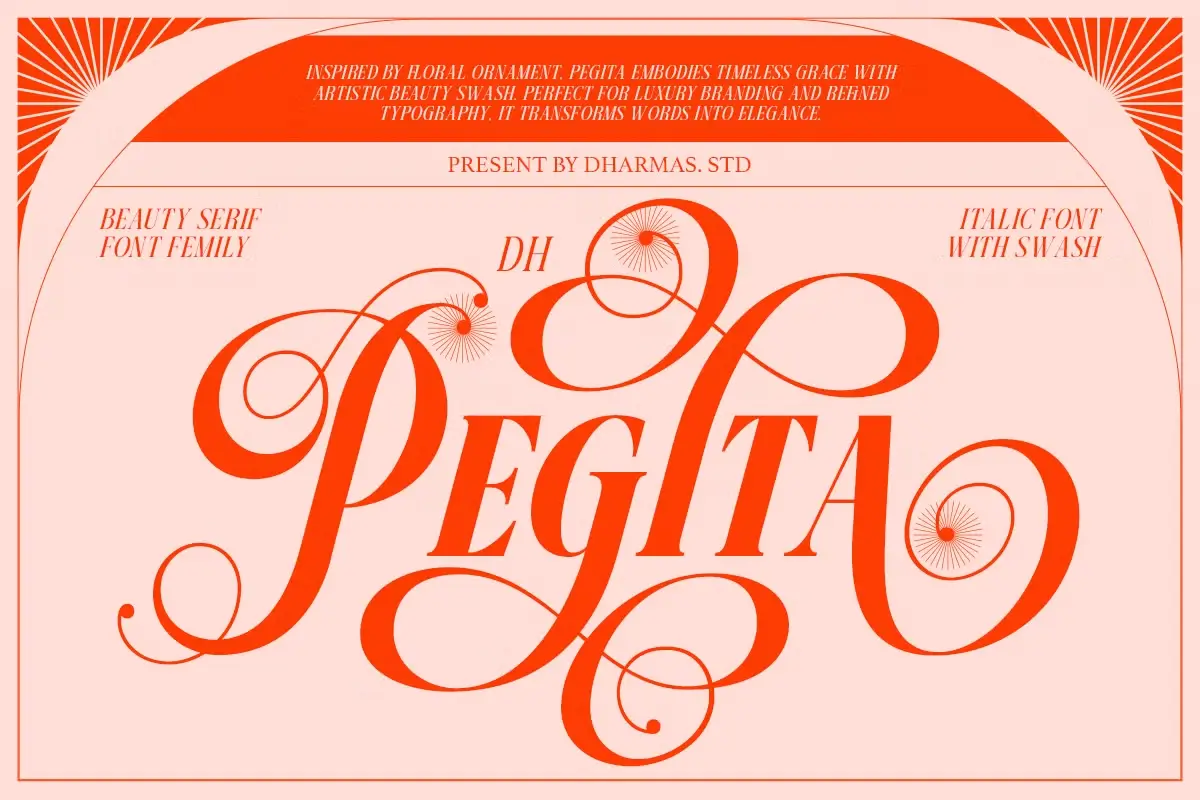
Dh Pegita is a sophisticated serif typeface inspired by the beauty of floral ornamentation. Designed to bring a touch of classic elegance to modern design projects, it blends timeless aesthetics with contemporary versatility. Its refined letterforms and delicate details make it an excellent choice for designers seeking a font that embodies both luxury and functionality. With a range of weights—including Thin, Extra Light, Light, Regular, Medium, Semi Bold, and Bold—Dh Pegita offers remarkable flexibility for diverse creative applications.
This typeface enhances branding, editorial layouts, and event invitations with its graceful curves and intricate decorative elements. Whether used for upscale logos, magazine headlines, or wedding stationery, Dh Pegita exudes charm and sophistication. Its refined design ensures a captivating visual appeal, making it a go-to choice for projects that demand elegance and high-end aesthetics.